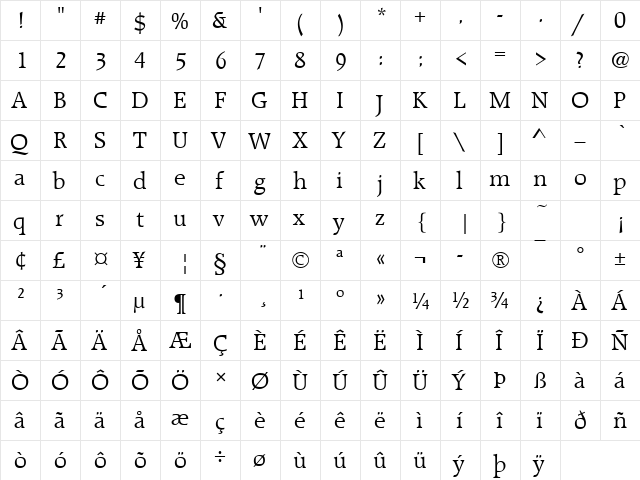
URWRadonT Regular Font Preview
URWRadonT Regular
URWRadonT Regular Font Details
Design Context for URWRadonT Typeface
URWRadonT takes a measured approach to typography — its balanced proportions and neutral character make it a reliable workhorse for both digital and print work.